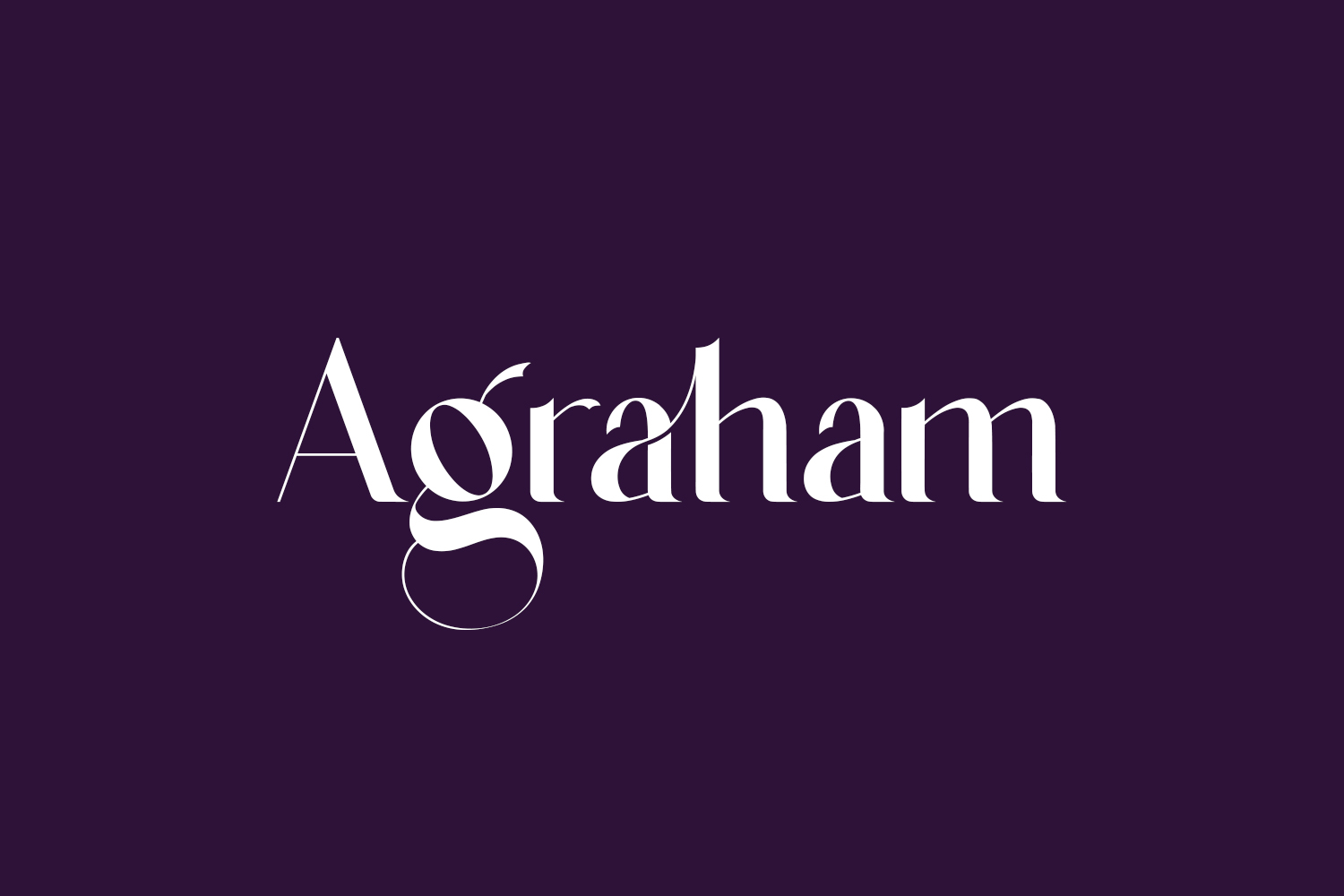
Agraham Free Font, a timeless serif font, exudes a nostalgic charm with its classic design. Meticulously crafted, it boasts intricate details, making it a standout choice. Download the font for free if you need it for personal use or purchase the full version for commercial use.
Designed by Hishand Studio